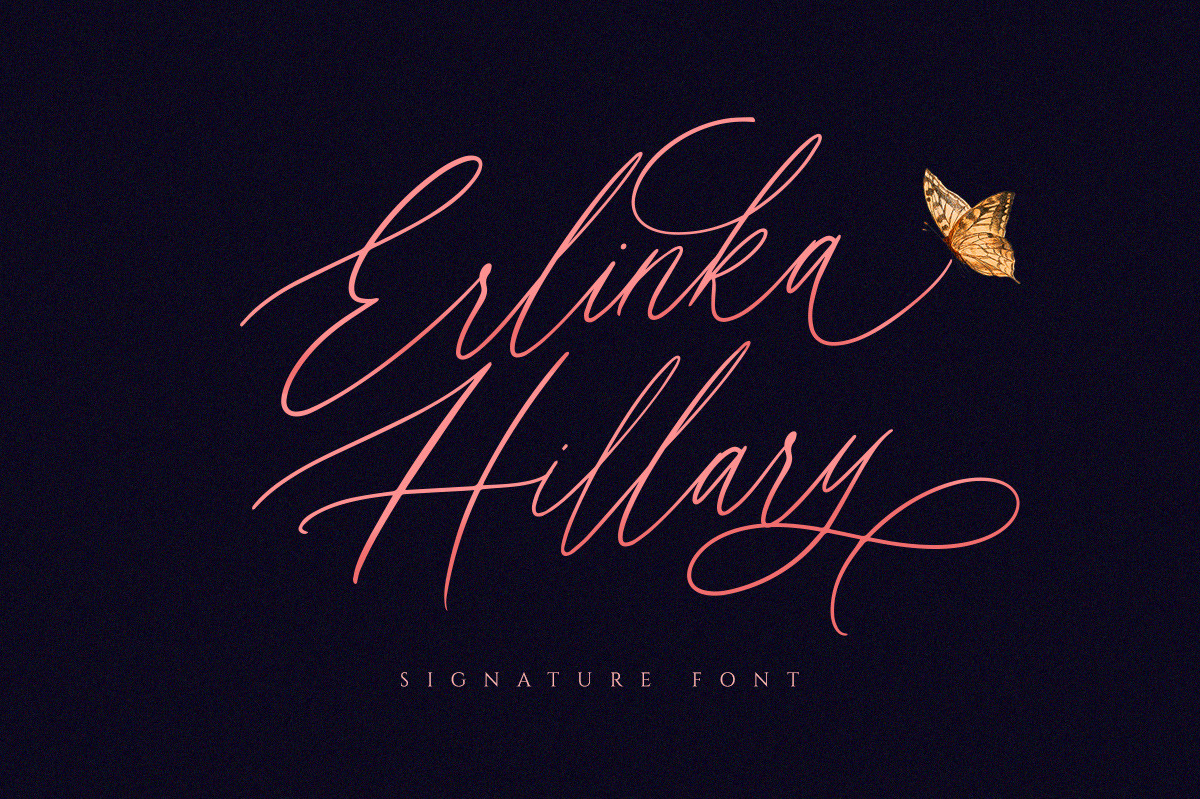
Erlinka Hillary - Signature Font
The Erlinka Hillary - Signature Font excels in distinguished design applications including executive branding, political campaign materials, professional business identities, prestigious law firm logos, diplomatic correspondence, leadership-focused marketing, corporate executive signatures, formal certificates, distinguished event invitations, and authoritative web design. Its statesmanlike script style makes it perfect for projects requiring commanding elegance that communicates leadership and establishes credible authority with audiences seeking trustworthy, professional design solutions with distinguished character.
What makes the Erlinka Hillary - Signature Font truly exciting is its exceptional ability to convey political sophistication and executive presence through carefully crafted letterforms. The font features confident, authoritative strokes with diplomatic flourishes and presidential proportions that create a distinctly statesmanlike appearance. Each character displays masterful attention to detail with commanding curves, authoritative connections, and distinguished spacing that give text a powerful, executive-quality signature. The font's political character and confident rhythm create an atmosphere of leadership while maintaining professional accessibility and credible authenticity.
The Erlinka Hillary - Signature Font family typically includes regular weight with comprehensive character sets, featuring uppercase and lowercase letters, numerals, punctuation, and international glyphs. The typeface often incorporates stylistic alternates, contextual ligatures, and diplomatic swashes that enhance its signature authority. These additional elements provide designers with creative flexibility to customize text appearance and achieve more natural-looking executive handwriting that reflects the font's distinguished and authoritative character.
This powerful signature font captivates professional audiences through its remarkable balance of authority and approachability. Unlike weak or uncertain fonts that lack executive presence, Erlinka Hillary - Signature Font embraces confident leadership while maintaining refined sophistication appropriate for high-level communications. The font's authoritative character makes it essential for political campaigns, executive businesses, and leadership brands where projecting competence and trustworthiness is fundamental to success in competitive professional environments.
The Erlinka Hillary - Signature Font Free Download presents designers with an outstanding opportunity to incorporate executive sophistication into their professional projects. From political organizations to corporate leadership brands, this font delivers the authoritative signature aesthetic that resonates with audiences who value strong leadership and professional competence. Its distinguished appeal ensures your designs communicate credibility and authority while the signature styling adds distinctive personality that reflects executive excellence in any application requiring powerful, trustworthy typography solutions.